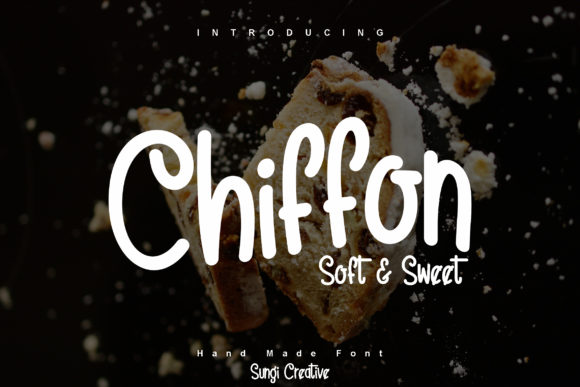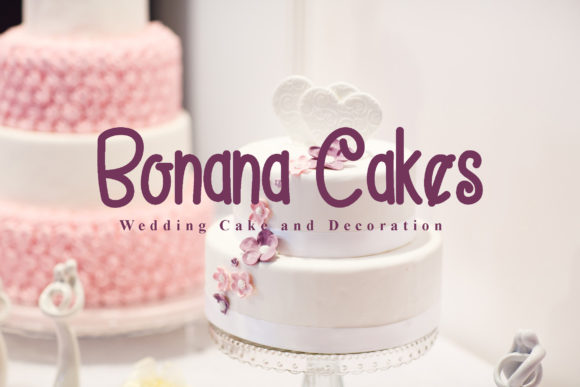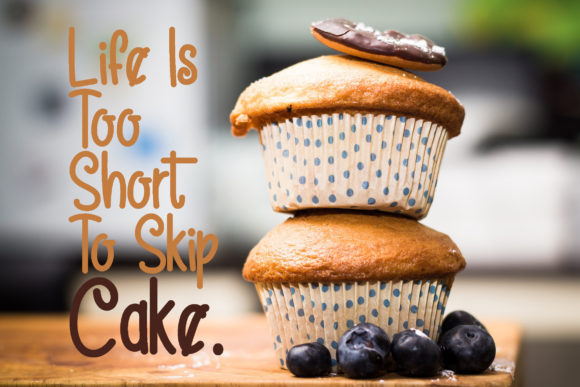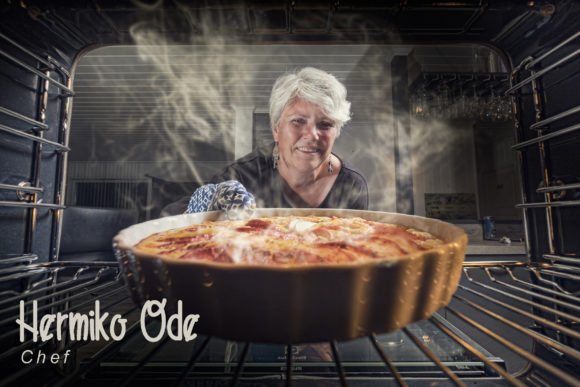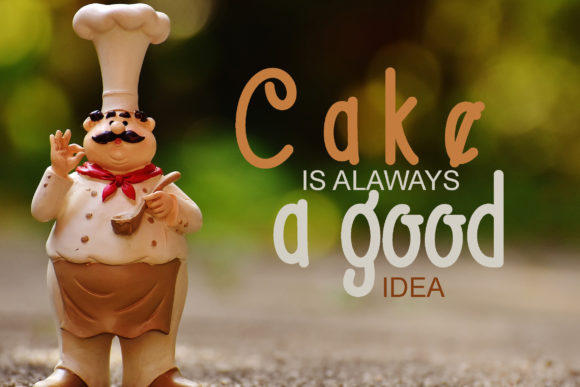
Chiffon Font
About Chiffon Font
Chiffon is a cute and charming handwritten font with an incredibly friendly feel. This bold font is the perfect fit for all of your logos, branding, social media, and crafty DIY projects.